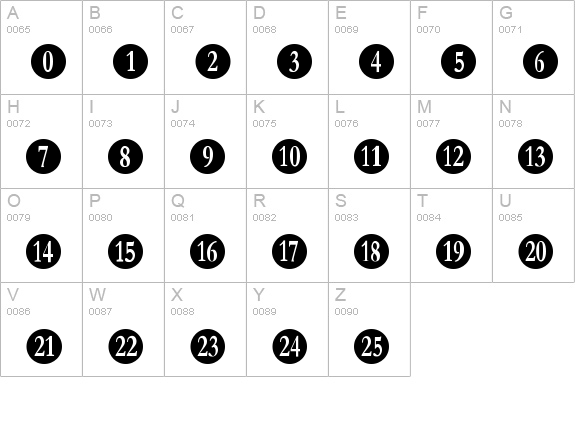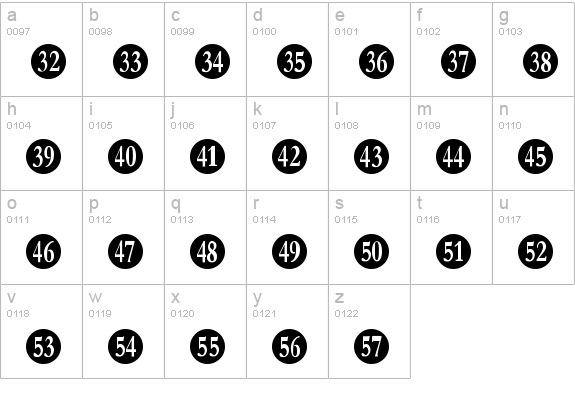
Numberpile Font Details
Introducing Numberpile font, a modern and versatile typeface that is perfect for a wide range of design projects. This elegant and stylish font features clean lines and a contemporary look that will elevate your designs to the next level. Whether you are creating logos, branding materials, or web graphics, Numberpile font is sure to make a lasting impression. What makes Numberpile font even more appealing is that it is available for free! Yes, you read that right - this high-quality font can be downloaded at no cost from FontsMarket.com. So go ahead and enhance your designs with the sleek and sophisticated Numberpile font today.